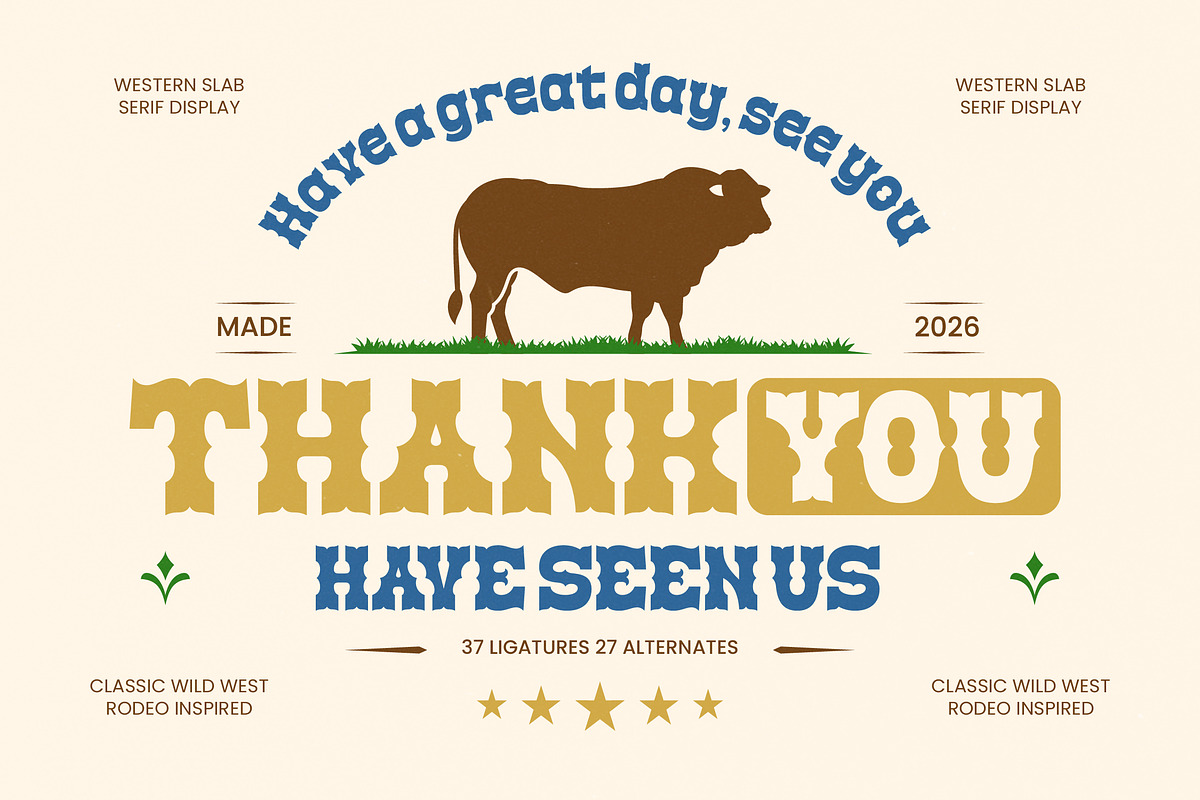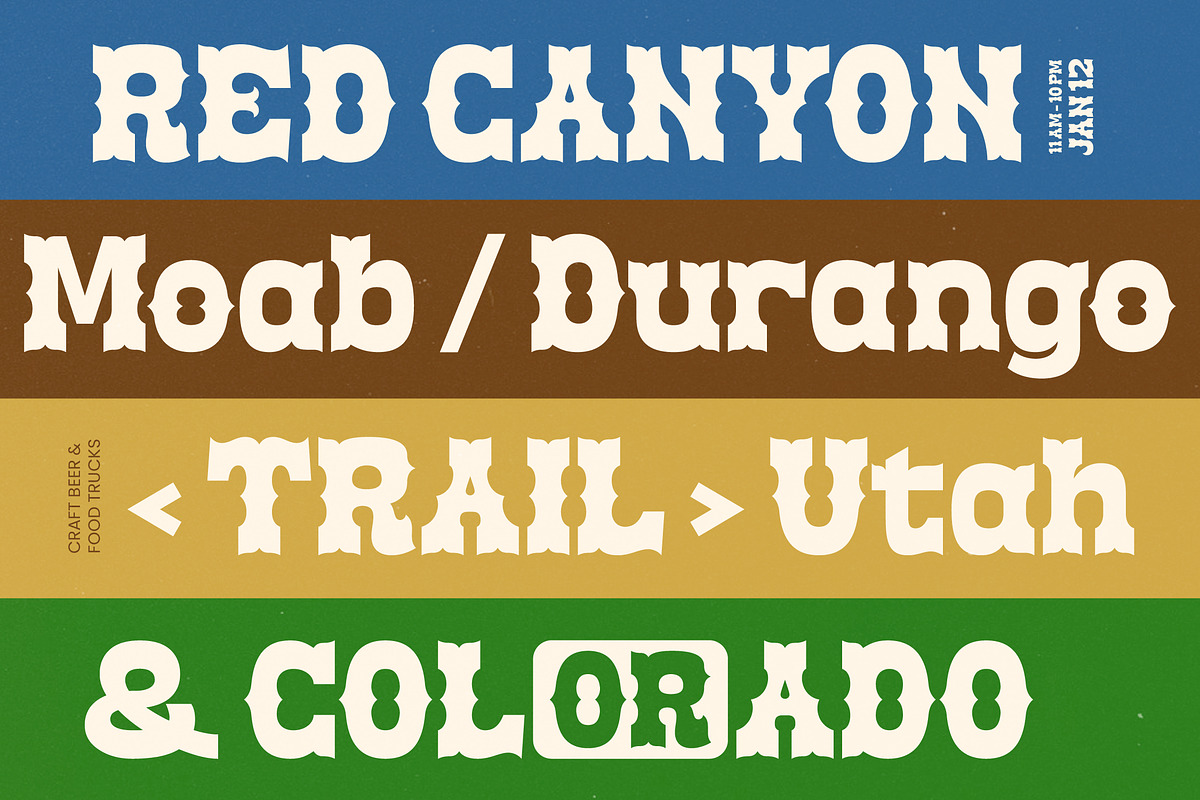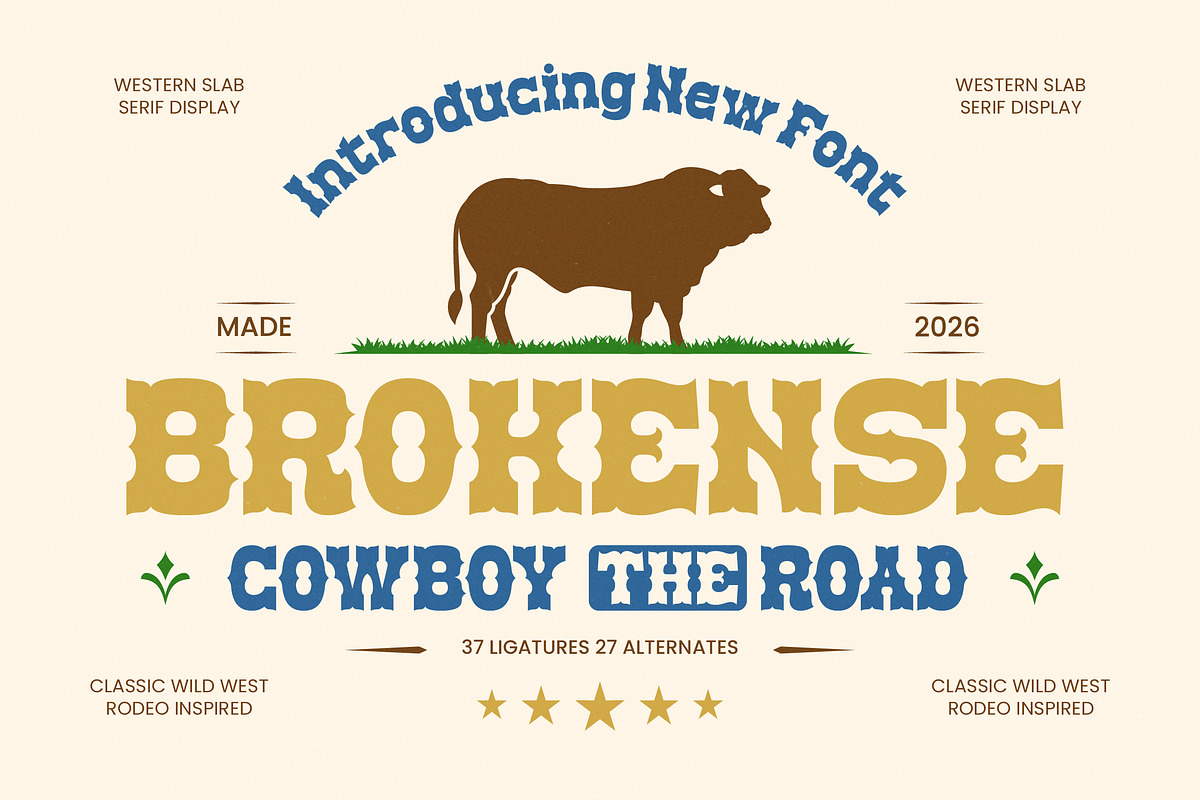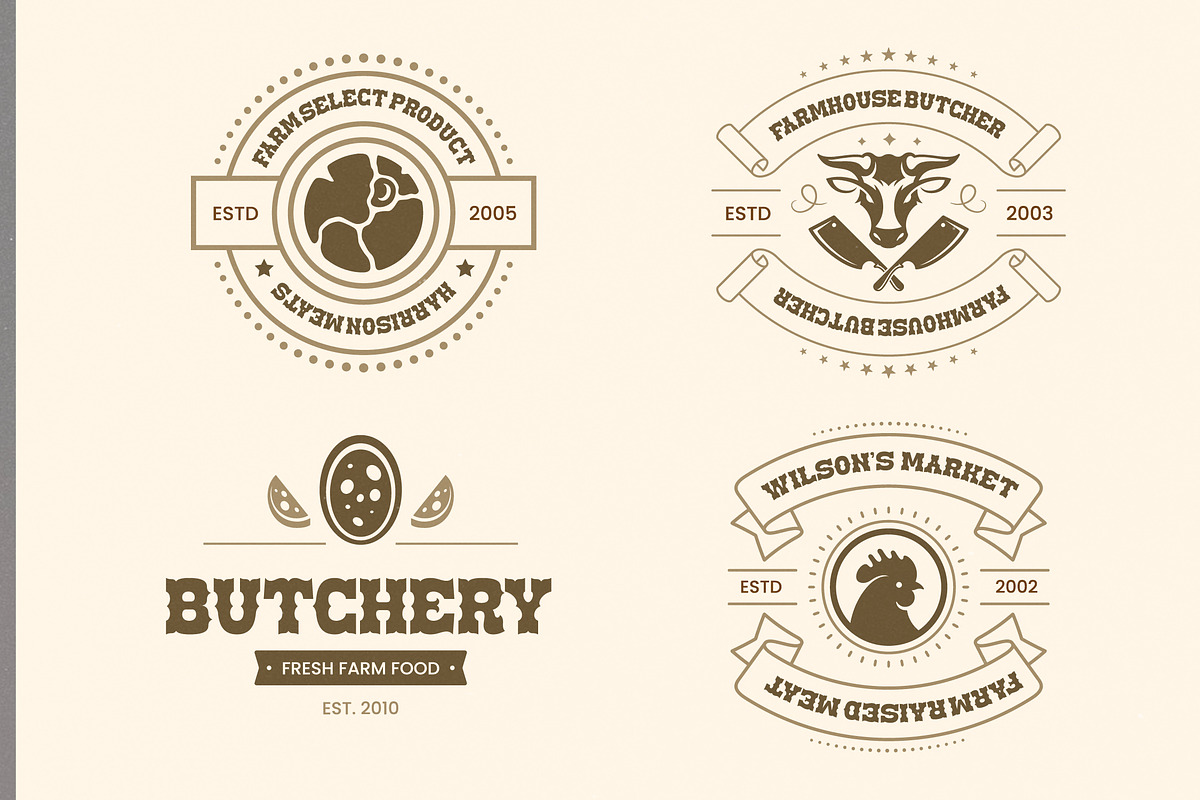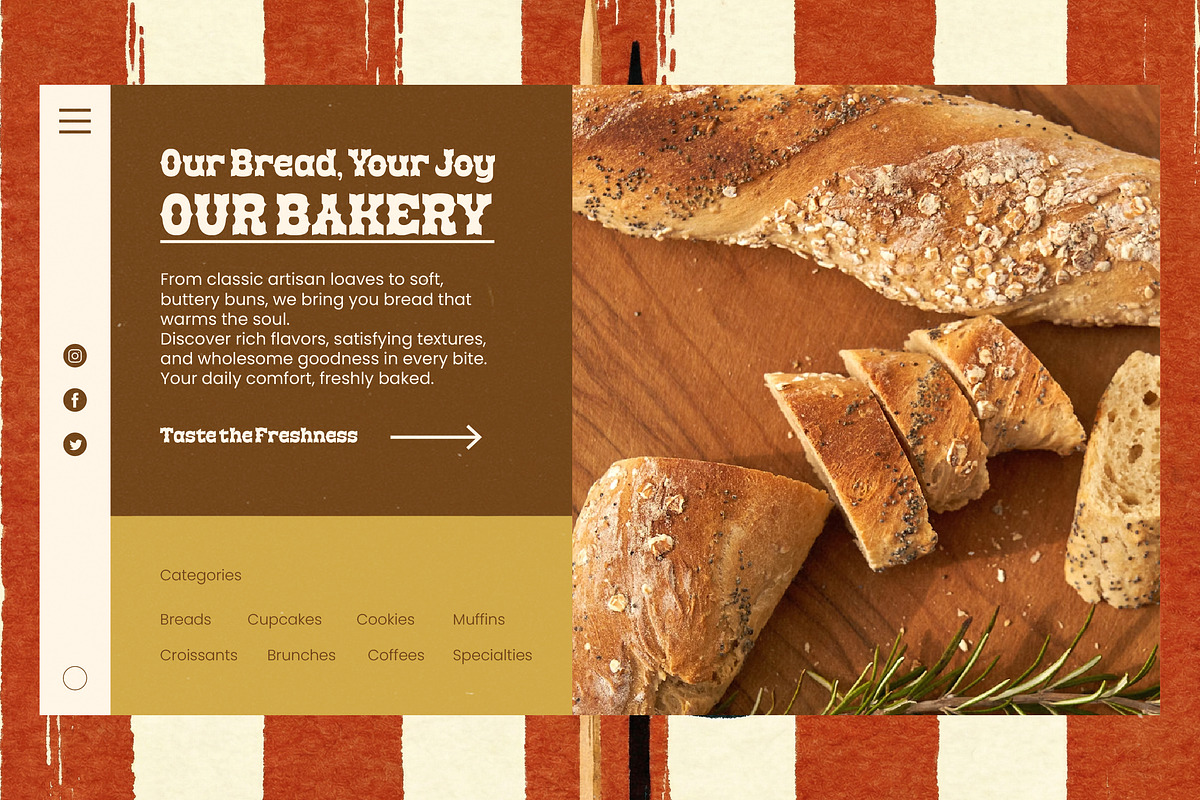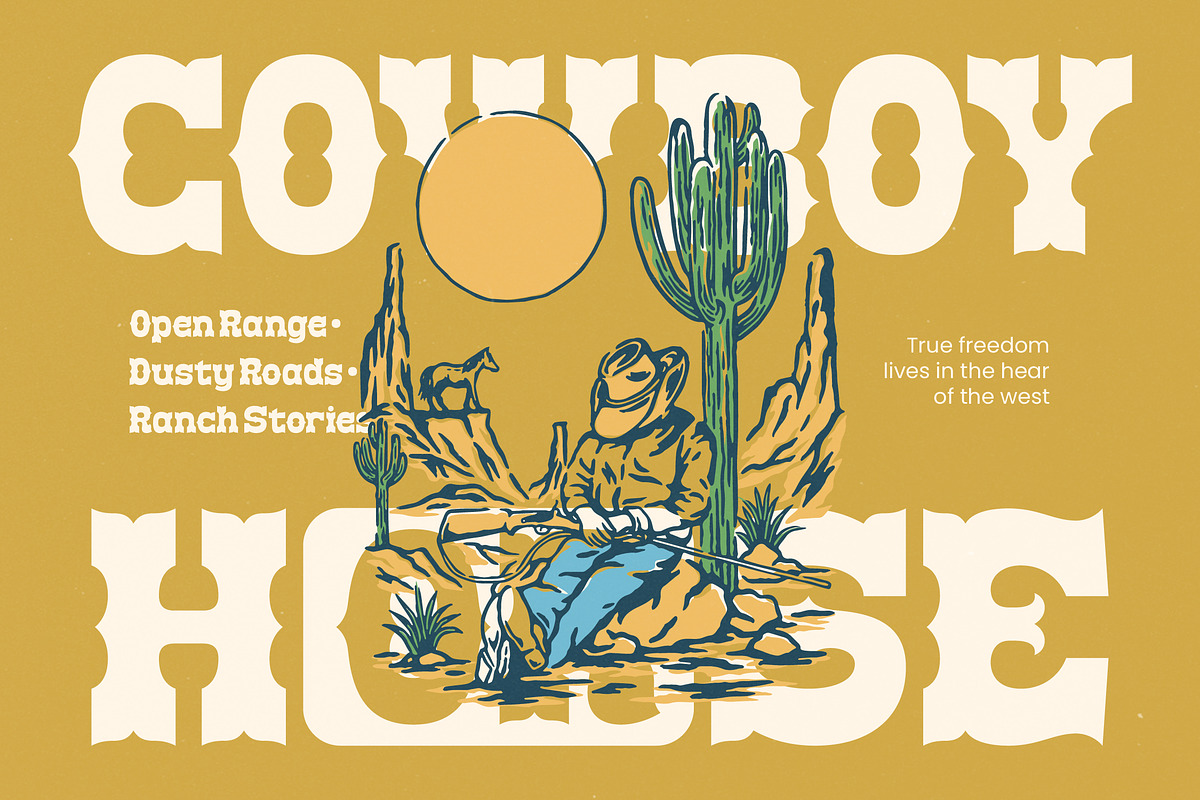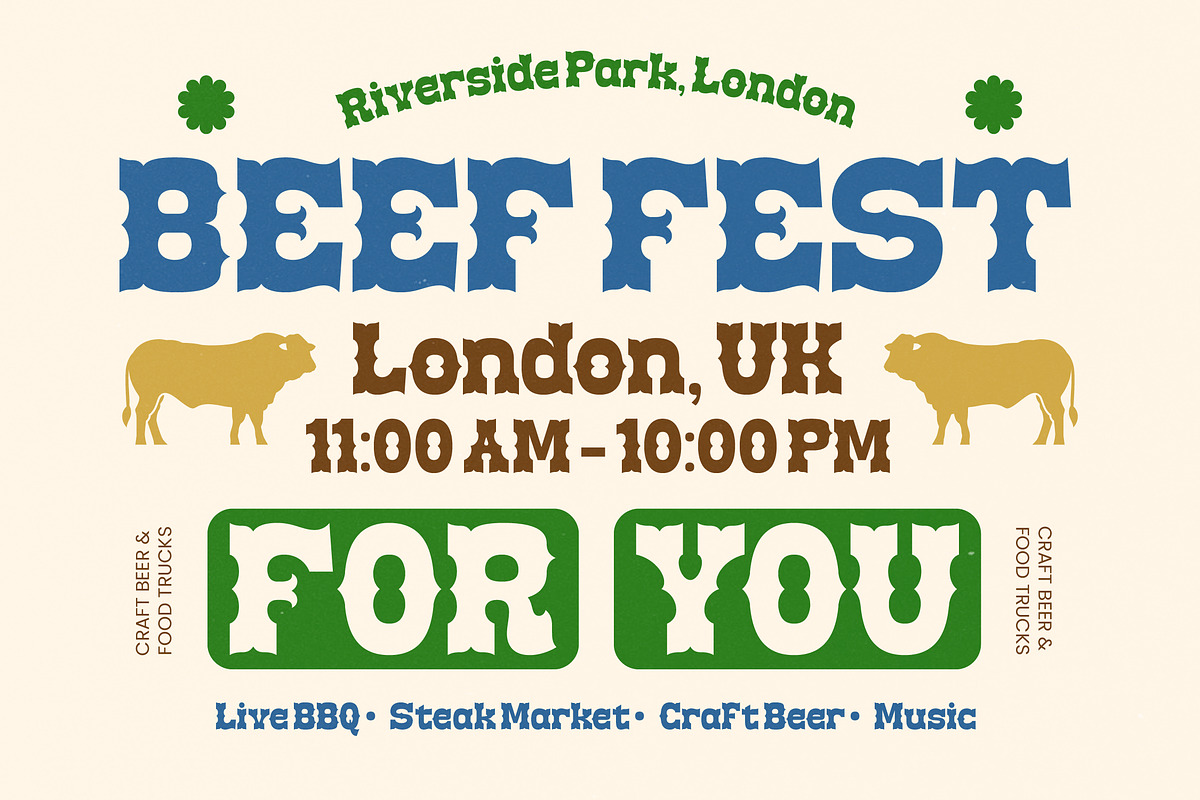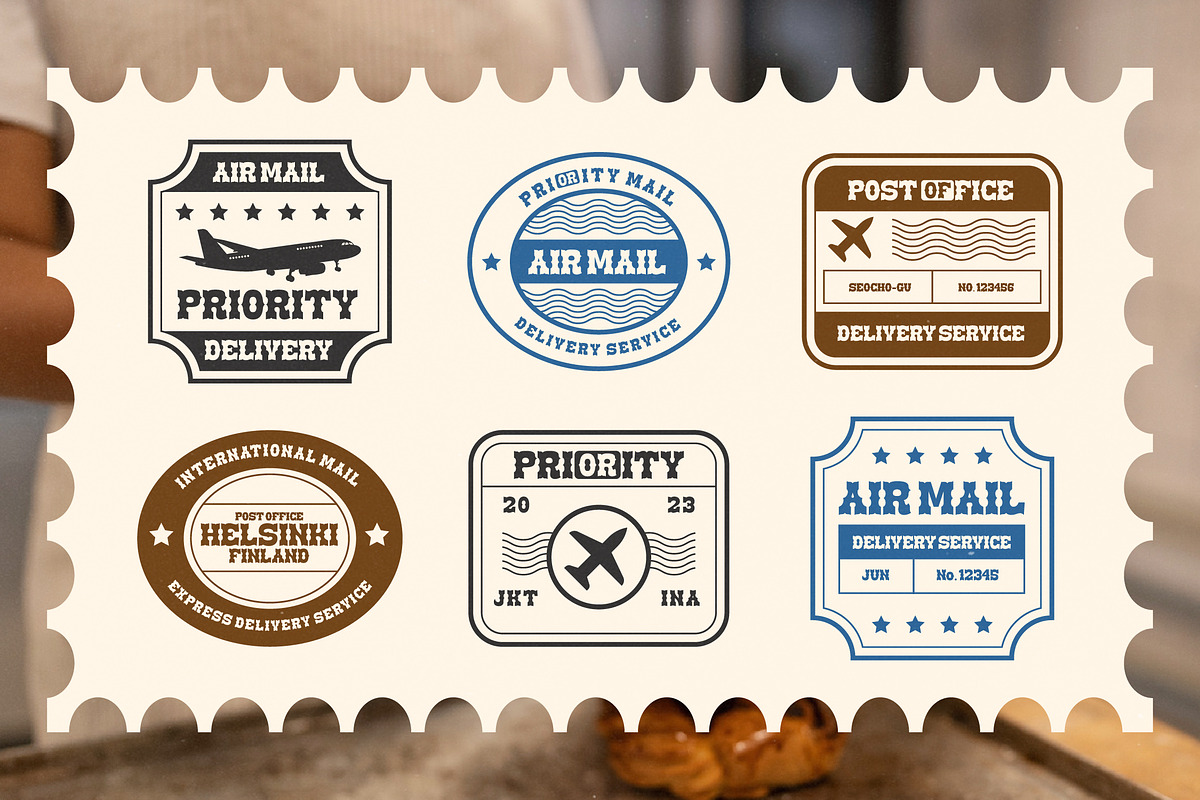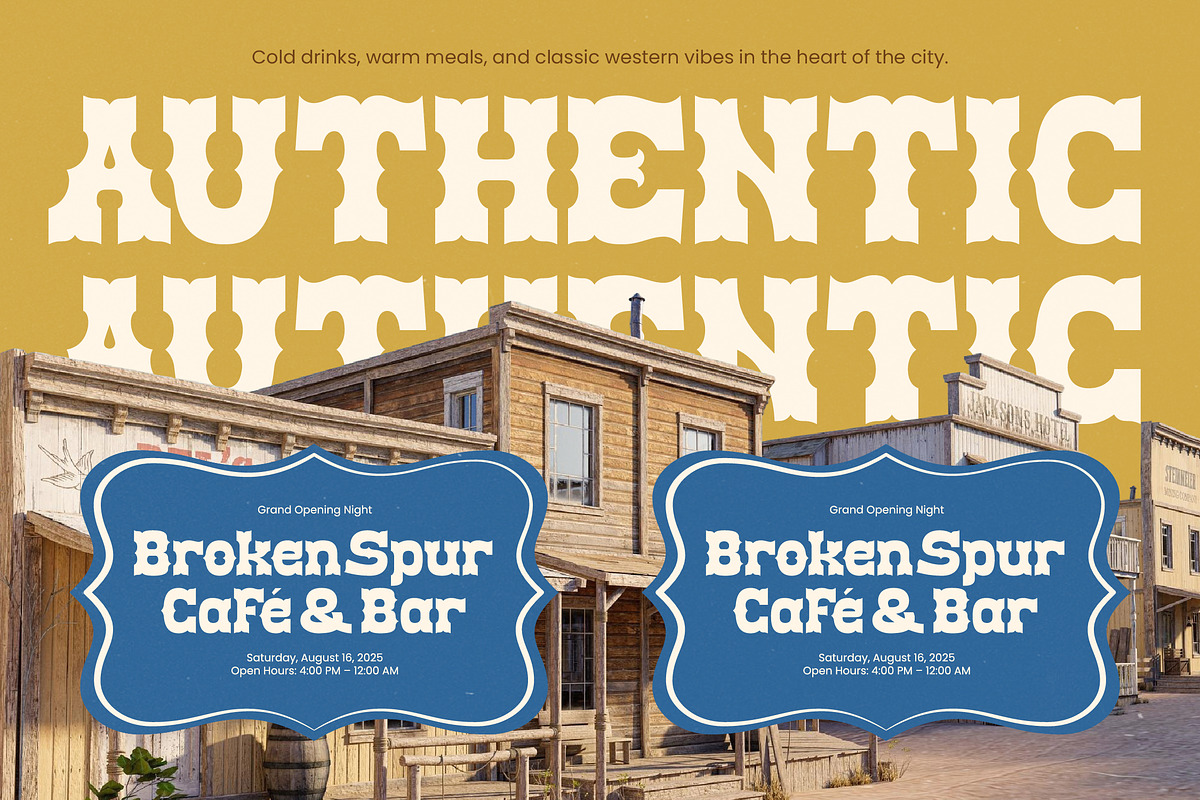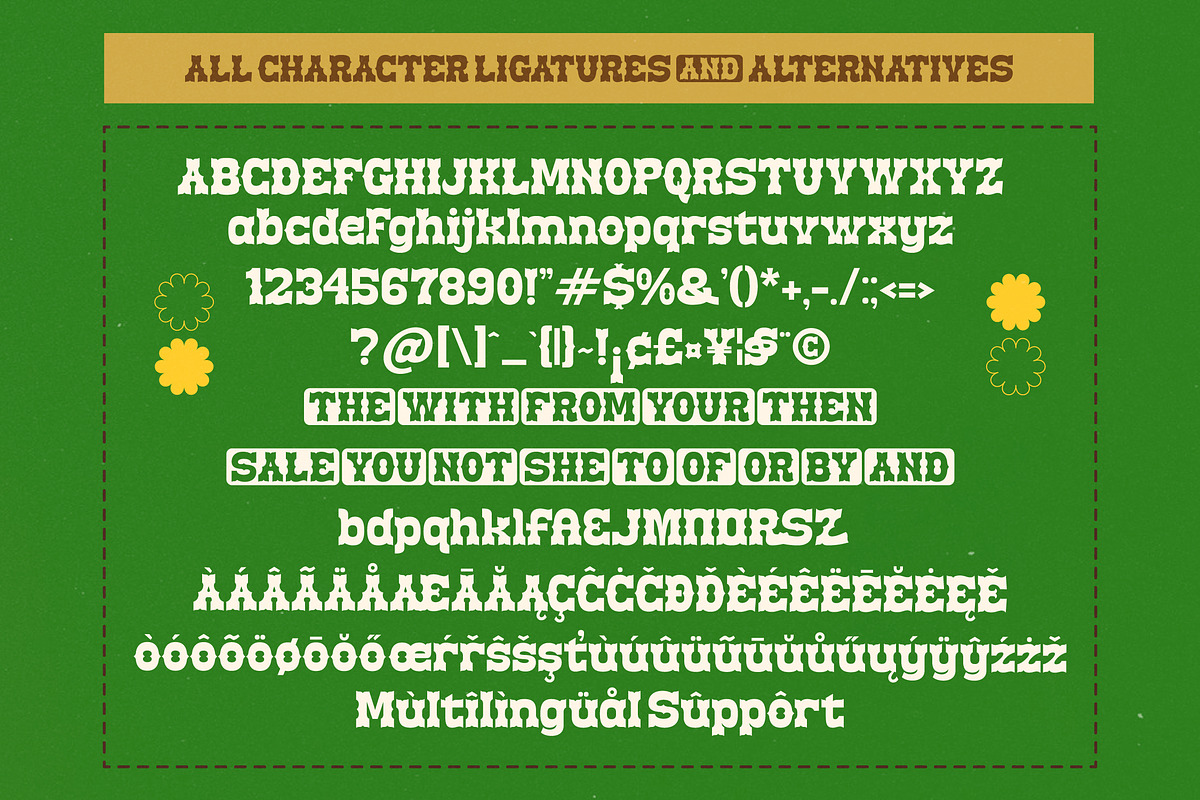
Brokense Cowboy Western Slab Serif
Brokense Cowboy - Western Slab Serif Display , Saddle up and bring the spirit of the frontier to your creative designs with Brokense Cowboy, a typeface that captures the raw energy and timeless charm of the Wild West. This robust display font is built to make a definitive statement, blending rugged heritage aesthetics with modern digital craftsmanship for maximum visual appeal.
Inspired by the iconic typography of classic rodeo posters and vintage American roadside signage, this font evokes dusty trails, hand-tooled leather saddles, and the bold soul of mid-century Americana. It bridges the gap between traditional cowboy heritage and the vibrant, nostalgic visual language found in historic western townships and highway diners.
With its heavy weight and distinctively sharp slab serifs, this modern serif display delivers an undeniable branding impact that commands immediate attention on any medium. It acts as a high-performance editorial font that balances the grit of a high-contrast serif with the refined touch and sophisticated spacing of luxury typography.
As the modern serif trend continues to embrace vintage revival and rustic textures, this typeface stands out as a leader in character-driven typography. It perfectly aligns with the current market demand for editorial display fonts that offer a sense of genuine authenticity and nostalgia in an increasingly digital world.
From high-impact logo design to rustic packaging, this font is versatile enough for diverse branding projects across industries including fashion, food and beverage, and event promotion. While rugged in nature, its decorative flourishes and decorative alternates also make it a stylish and unique choice for themed wedding stationery or high-end invitations.
Enhance your creative workflow with a comprehensive suite of ligatures and alternates that provide endless customization options for unique letter combinations and layouts. The font package also includes full multilingual support and a wide range of international characters, ensuring your message reaches a global audience through any swashes or decorative glyphs you choose.
Numerals
Punctuations (OpenType Standard)
Accents (Multilingual Characters)
Ligatures and Alternative Style Stylistic Set